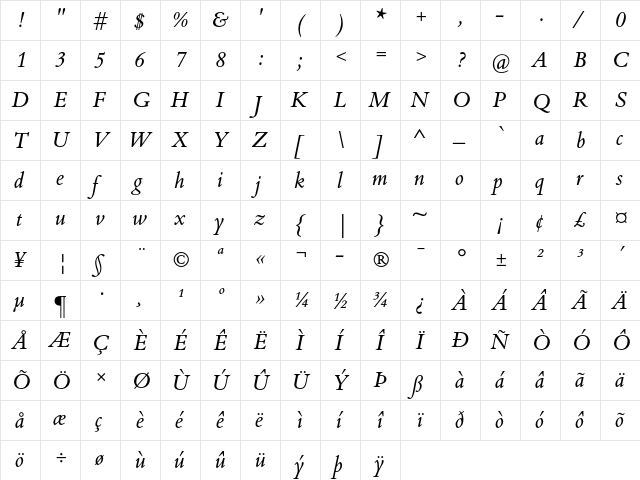
Bembo Book MT Std Italic
Design Context for Bembo Book MT Std Typeface
Bembo Book MT Std takes a measured approach to typography — its balanced proportions and neutral character make it a reliable workhorse for both digital and print work. The slanted form adds forward momentum and visual energy.
Pro Tip: Use Bembo Book MT Std for emphasis, pull quotes, and subheadings where its slanted energy can add rhythm to the layout.